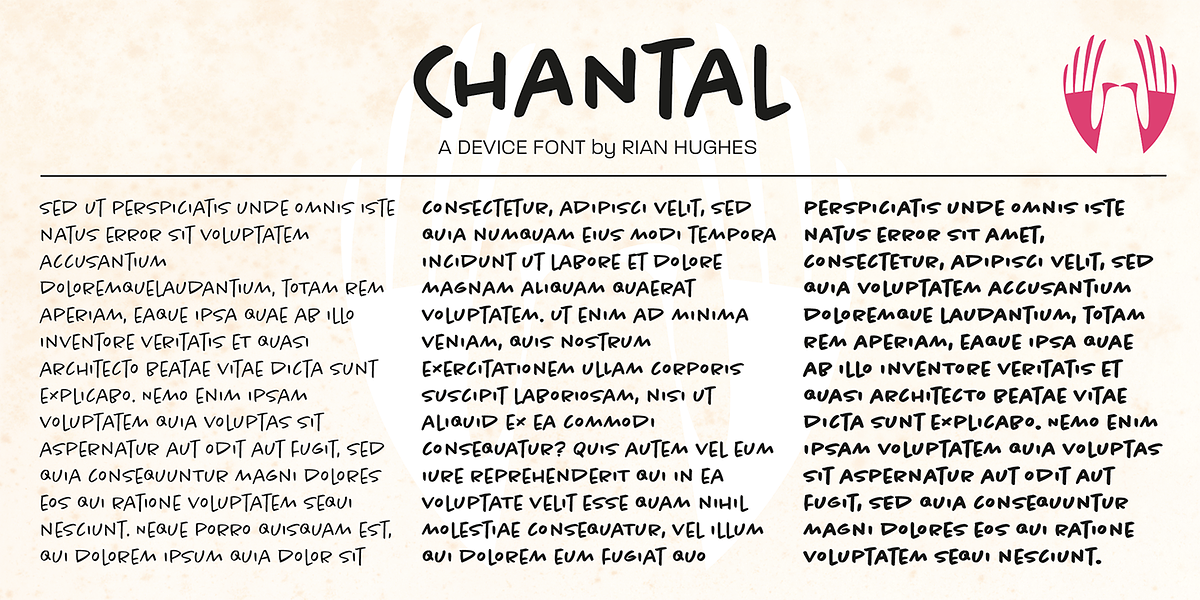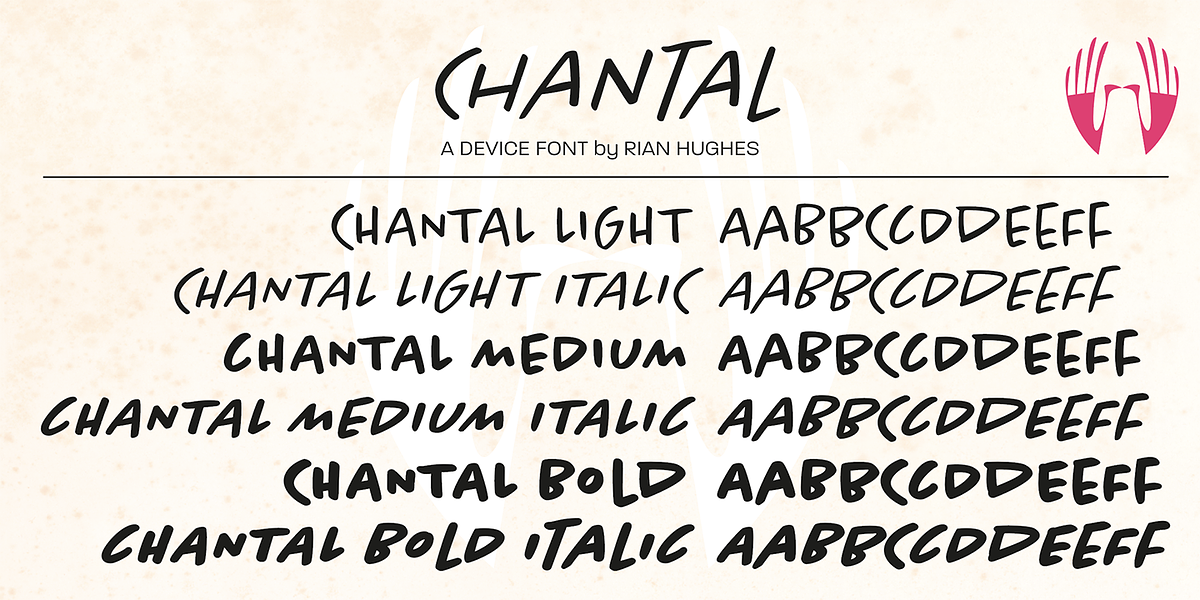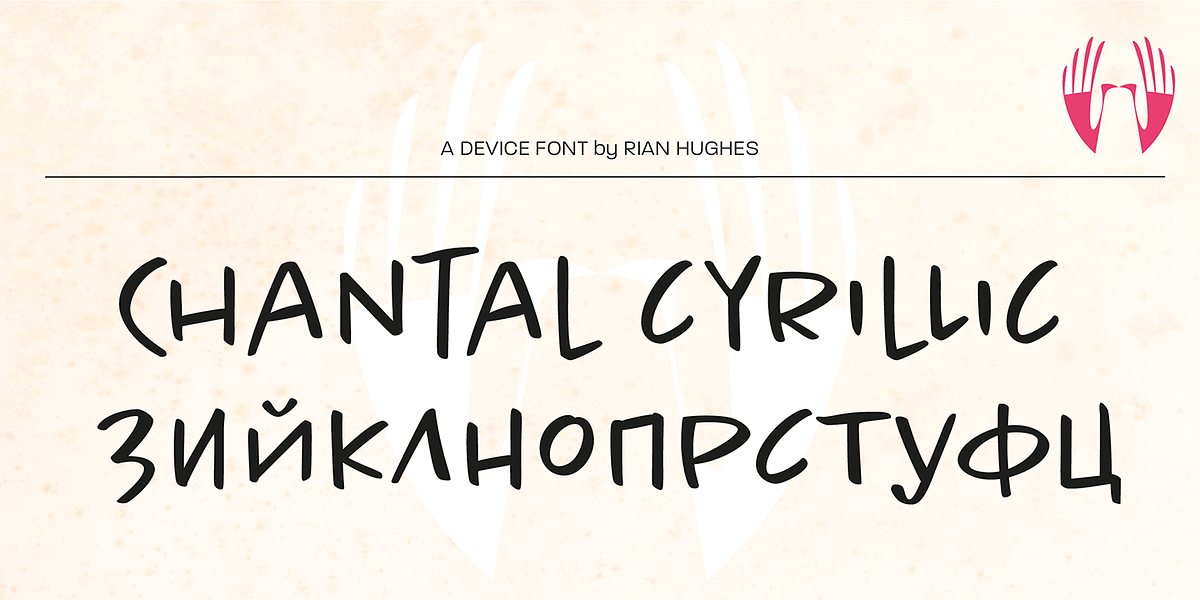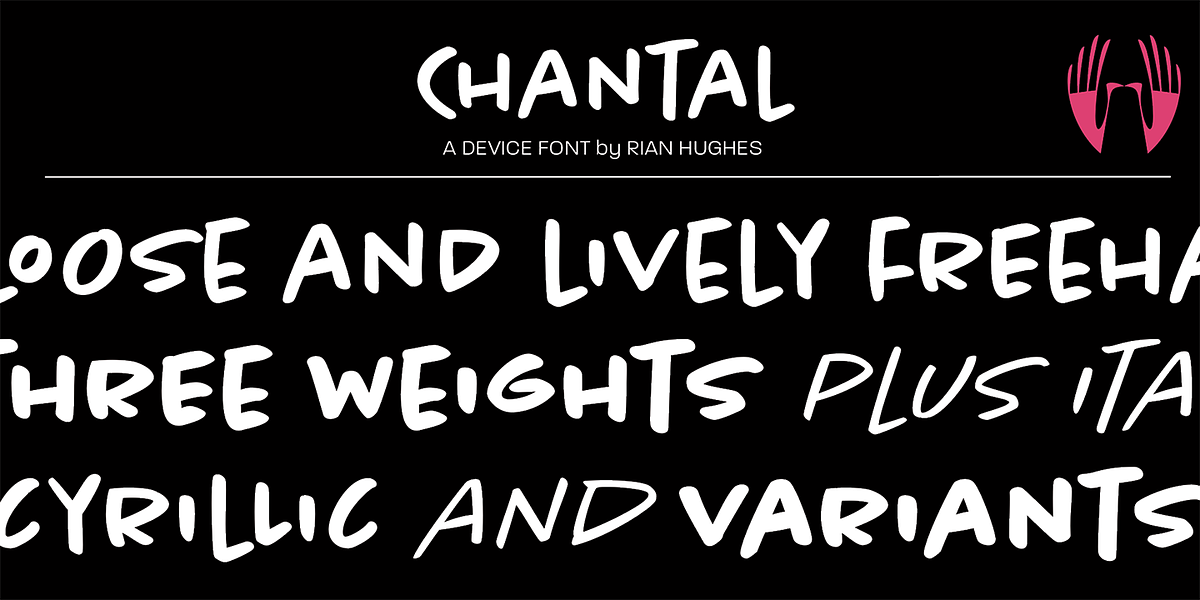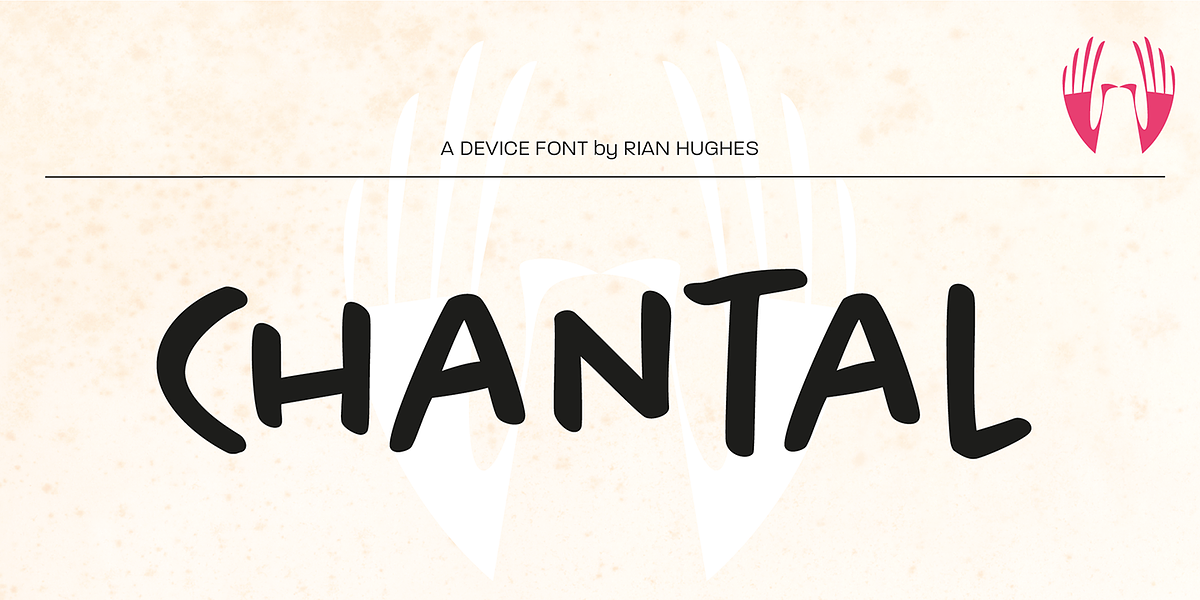
Chantal
Chantal is a loose and casual brush script font designed to resemble hand lettering done with a felt-pen. It features alternate characters for both uppercase and lowercase letters, allowing for customization. Originally created for the RoboHunter comic series in 2000AD, Chantal conveys a lighthearted and handmade feel.